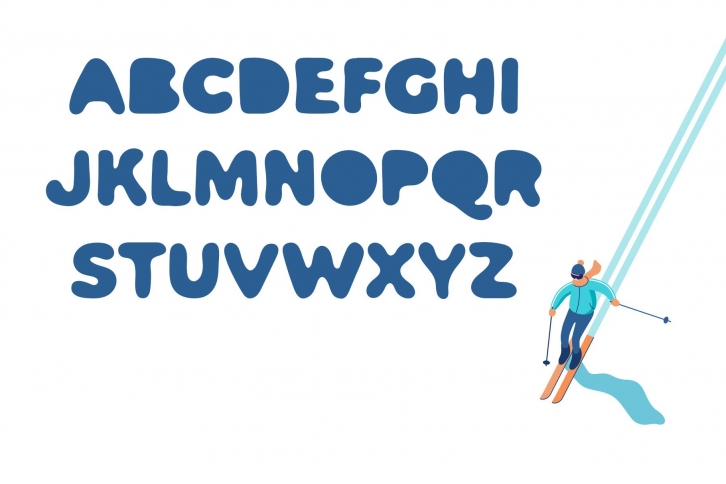
Funzi is a cool, fun and friendly display font. Whatever the topic, this font will be a wonderful asset to your font library, as it has the potential to enhance any creation.